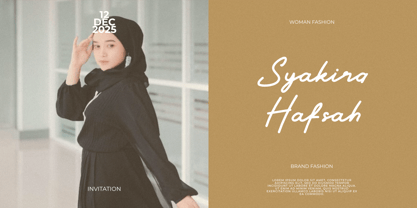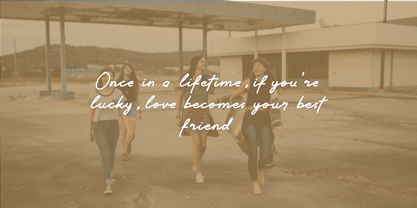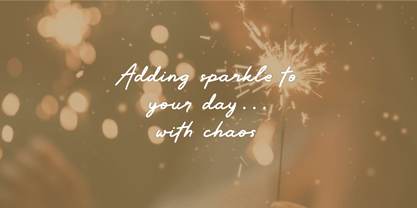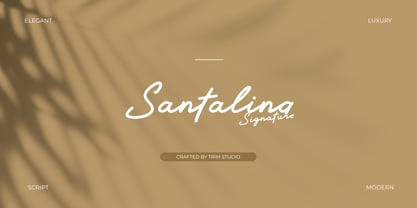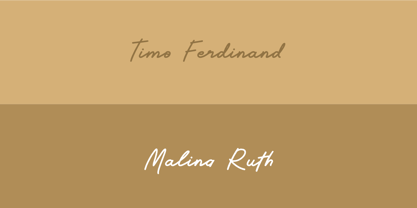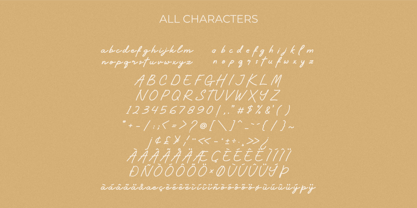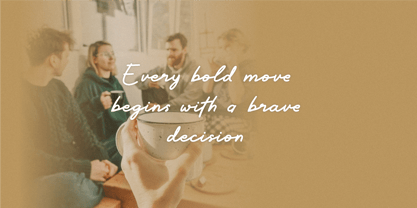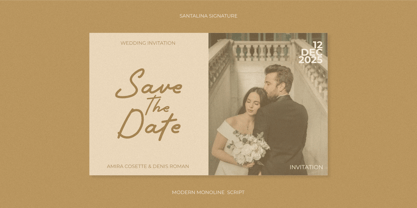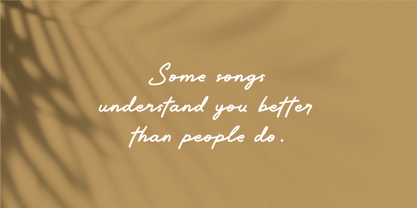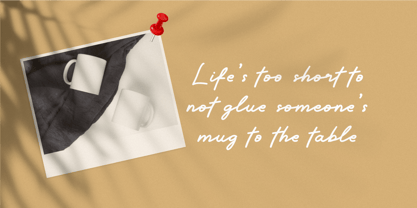
Santalina
von Trim Studio
Die Schriftfamilie Santalina wurde von Deri Kurnia entworfen und von Trim Studio veröffentlicht. Santalina enthält 1 Stile.
Santalina has a natural handwritten look with a casual and modern feel. The letters are slightly slanted and easy to read, perfect for designs that need a personal touch. It works well for invitations, logos, quotes, journals, and social media posts. The style is friendly yet neat, making it versatile for many creative projects. Add a warm, stylish vibe to your work with this simple and elegant script font.
Designer: Deri Kurnia
Herausgeber: Trim Studio
Foundry: Trim Studio